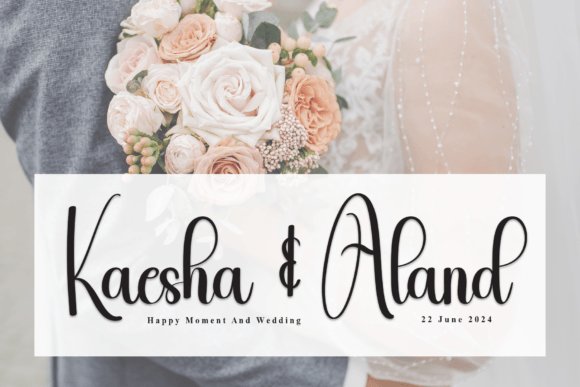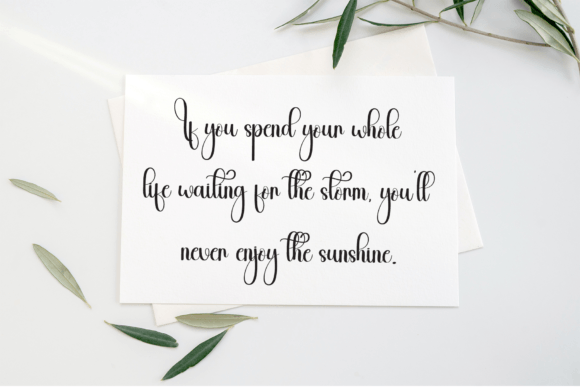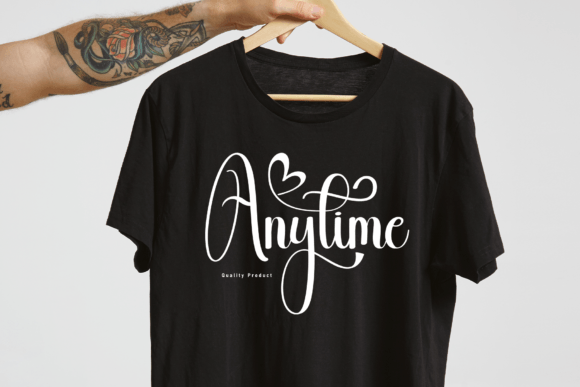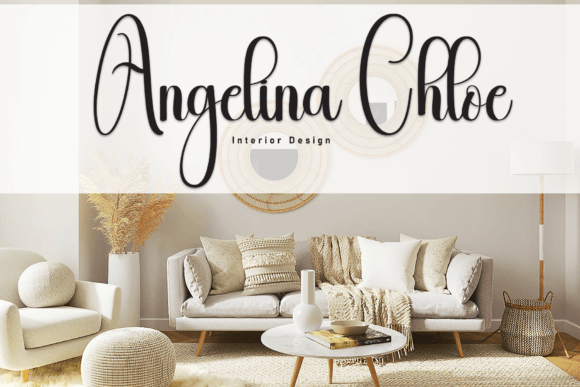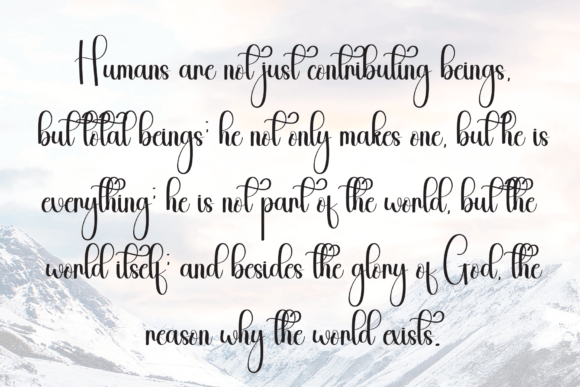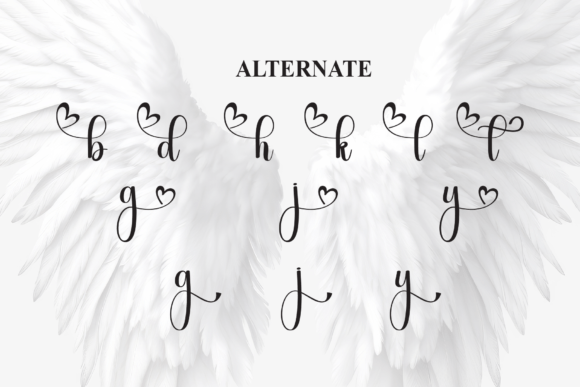
Introducing Angel Wings Font: The Sweet and Friendly Handwritten Font for Your Design Needs
Are you a designer or crafter looking for a font that can add a touch of whimsy and fun to your designs? Look no further than Angel Wings Font! This sweet and friendly handwritten font is perfect for creating wedding invitations, cards, and other designs that require a playful and charming touch.
What Makes Angel Wings Font So Special?
Angel Wings Font is a unique and eye-catching font that is sure to make your designs stand out. Its sweet and friendly tone makes it perfect for a variety of design projects, from wedding invitations and cards to party decorations and craft projects. The font’s handwritten style gives it a personal and approachable feel, making it ideal for designers and crafters who want to add a touch of warmth and personality to their designs.
Key Features of Angel Wings Font
- Cute and Fun: Angel Wings Font is a playful and charming font that is sure to add a touch of fun to your designs.
- Sweet and Friendly: The font’s sweet and friendly tone makes it perfect for designs that require a personal and approachable feel.
- Handwritten Style: The font’s handwritten style gives it a unique and eye-catching look that is sure to make your designs stand out.
- Versatile: Angel Wings Font is perfect for a variety of design projects, from wedding invitations and cards to party decorations and craft projects.
Angel Wings Font is an ideal choice for wedding invitations and cards. Its sweet and friendly tone makes it perfect for conveying the joy and happiness of a wedding, and its handwritten style gives it a personal and romantic feel. Whether you’re designing a wedding invitation, a thank-you card, or a bridal shower invitation, Angel Wings Font is sure to add a touch of charm and whimsy to your design.
Great for Crafters and DIY Enthusiasts
Angel Wings Font is also perfect for crafters and DIY enthusiasts who love to create their own decorations and gifts. The font’s playful and charming tone makes it ideal for a variety of craft projects, from party decorations and gift tags to scrapbooking and journaling. Whether you’re creating a handmade card, a decorative sign, or a personalized gift, Angel Wings Font is sure to add a touch of fun and personality to your project.
Tips for Using Angel Wings Font
- Pair it with Other Fonts: Angel Wings Font looks great when paired with other fonts, such as bold and modern fonts or elegant and cursive fonts.
- Use it for Headings and Titles: The font’s playful and charming tone makes it perfect for headings and titles, but it can also be used for body text for a more personal and approachable feel.
- Experiment with Colors: Angel Wings Font looks great in a variety of colors, from bright and bold colors to soft and pastel colors.
Angel Wings Font is a sweet and friendly handwritten font that is perfect for designers and crafters who want to add a touch of fun and whimsy to their designs. Its cute and playful tone makes it ideal for wedding invitations, cards, and other designs that require a personal and approachable feel. With its versatility and charm, Angel Wings Font is sure to become a favorite font in your design collection.